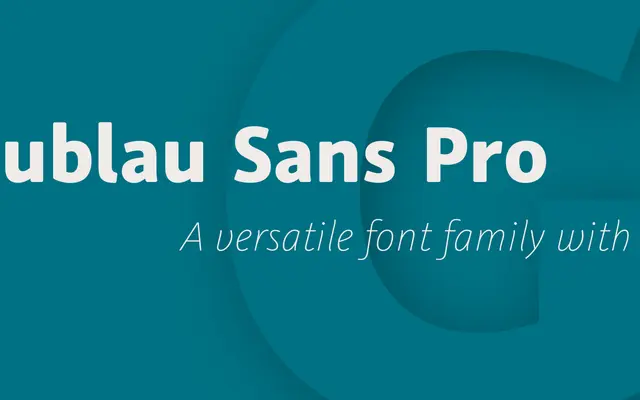
Graublau Sans Pro
FDI Type Foundry · Georg Seifert · 2008
A humanist sans with seven text weights and three display cuts, developed over five years by Georg Seifert with over 1,000 glyphs per style.
Designed by Georg Seifert and released in 2008 after five years of development, Graublau Sans Pro offers seven text weights plus three additional display weights, each with italics that depart from the neutral upright forms and draw on handwriting. The family includes true small caps, old-style and lining figures in both proportional and tabular variants, swash and titling alternates, and discretionary ligatures. Script coverage spans Latin Extended, Basic Cyrillic and Basic Greek, making it a capable choice for corporate design, annual reports and multilingual editorial work.
The upright styles are clean and neutral in character, while the italics draw on handwriting forms, a combination typical of humanist sans design. The extensive OpenType feature set and broad weight range place it firmly in the text and corporate humanist tradition.